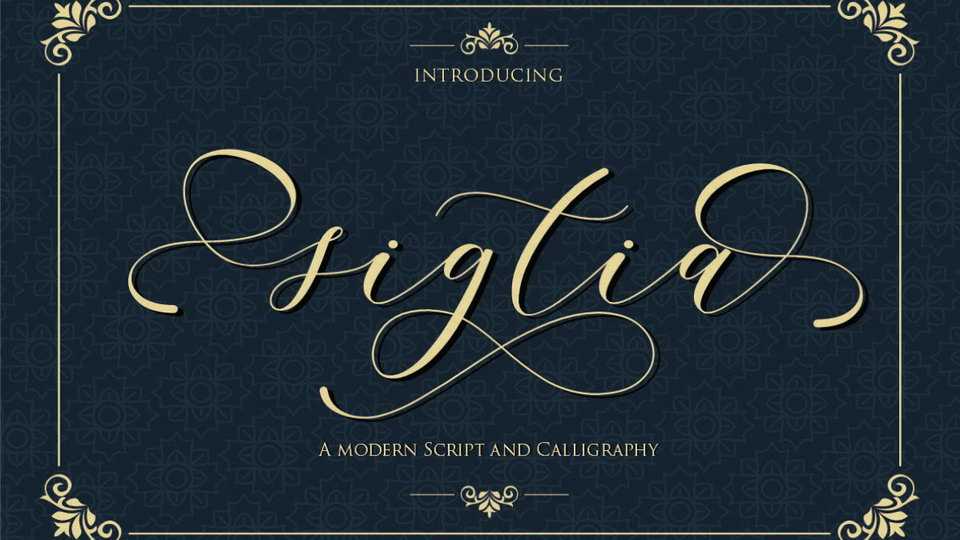
Download Sigtia font, an elegant and flowing handwritten typeface. Sigtia maintains its classy calligraphic influences while feeling contemporary and fresh.
Designer: Gilar Studio